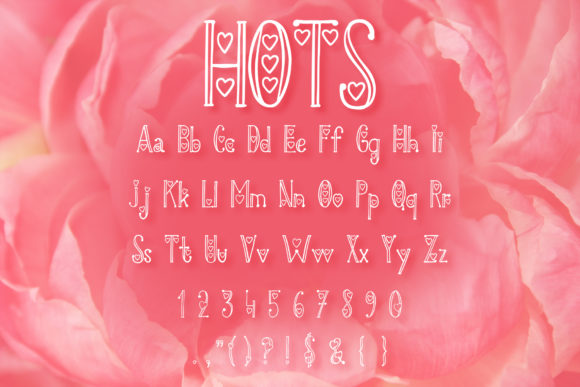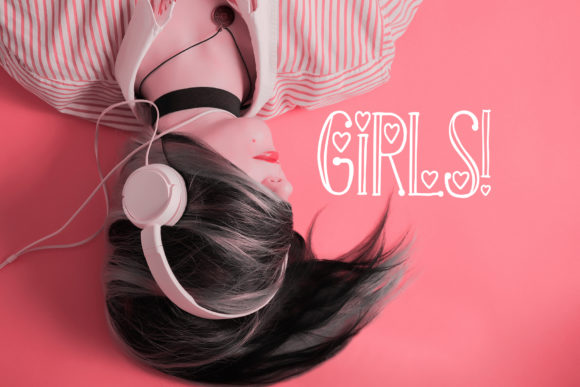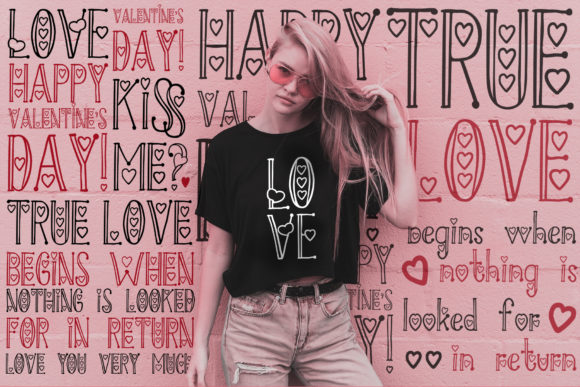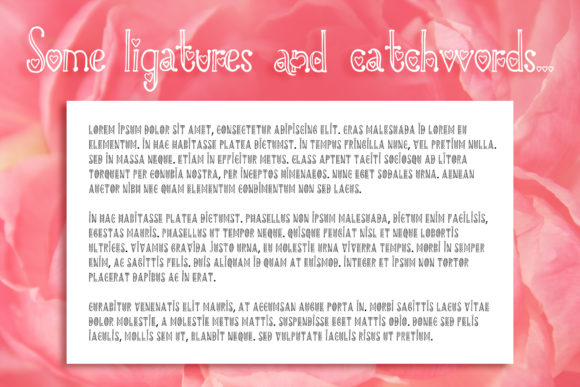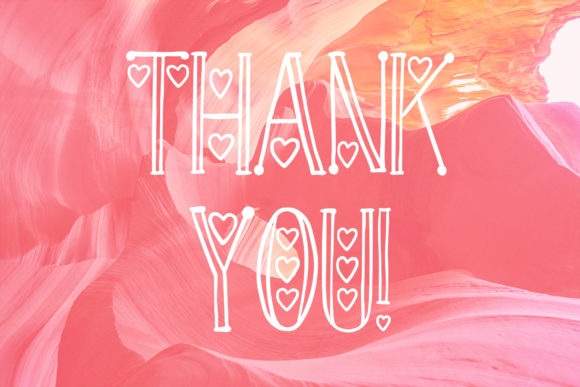
Introduction to Hots Font
As a designer, you’ve probably found yourself stuck on a creative project, searching for the perfect font to bring your vision to life. It’s that moment of excitement when you stumble upon a game-changing design resource – like the Hots Font. This stunning font is a treasure trove of hand-drawn hearts and beautiful characters, making it the ultimate Valentine’s Day companion.
Imagine designing a gift card or packaging with a transparent background, featuring the Hots Font in all its glory. The result is a romantic and eye-catching design that’s sure to impress. With the Hots Font, you’ll have endless possibilities for creative projects, from sweet wishes for lovers to festive Valentine’s Day decorations. And the best part? It’s available for free download, making it a valuable asset for designers of all levels.
Key Features of Hots Font
- High-quality font with a transparent background, making it ideal for creative projects that require a clean and minimalist design.
- Includes a full character set, covering a wide range of languages, making it a versatile design resource for global creative projects.
- Unique, modern design aesthetic that sets it apart from other fonts, perfect for designers looking to add a touch of sophistication to their creative project.
Honest Review: Hots Font
I recently stumbled upon Hots Font while searching for a high-quality design resource for a creative project. As a designer, I was immediately drawn to its unique style and versatility.
- High quality: The font is incredibly sharp and clear, making it perfect for use in a variety of creative projects.
- Limited font styles: While Hots Font has a lot of great features, it’s limited to a single font style, which might not be suitable for projects that require a lot of variation.
- No bold or italic options: The font doesn’t have bold or italic options, which might limit its use in certain design contexts.
Overall, I’m impressed with Hots Font’s unique style and high quality. While it has some limitations, it’s a great resource for designers looking for a free and versatile font. I’d definitely recommend it for creative projects, especially those that require a lot of flexibility and experimentation.
Hots Font
Hots Font is a high-quality, free design resource perfect for any creative project. With its sleek and modern design, it’s ideal for adding a touch of sophistication to your work. One of its standout features is its transparent background, allowing you to easily overlay it on top of other elements.
Tips for Getting the Most Out of Hots Font
To get the most out of Hots Font, try pairing it with other high-quality design resources to create a cohesive and visually appealing design. Experiment with different font sizes, colors, and placements to find the perfect balance for your project.
Hots Font is perfect for a wide range of creative projects, including logos, branding materials, social media graphics, and presentations. Its versatility and high-quality design make it a valuable addition to any design arsenal.